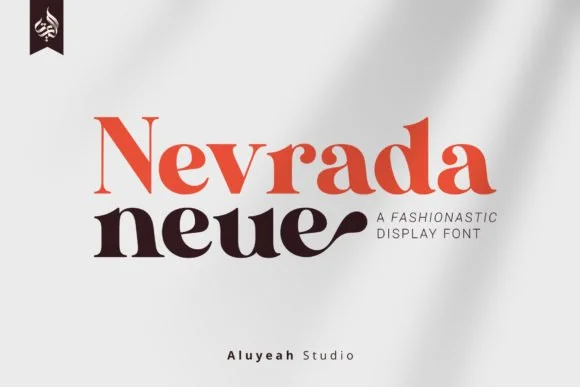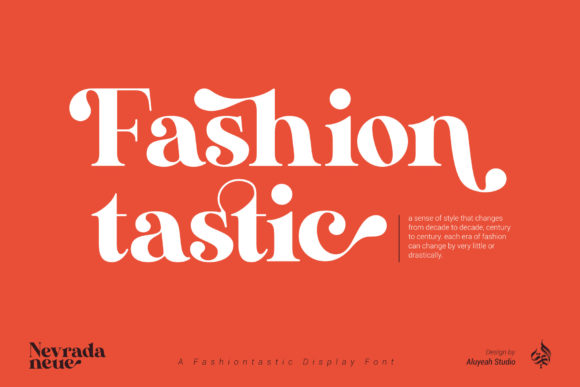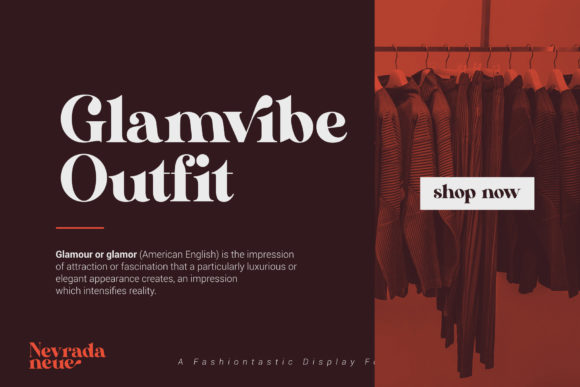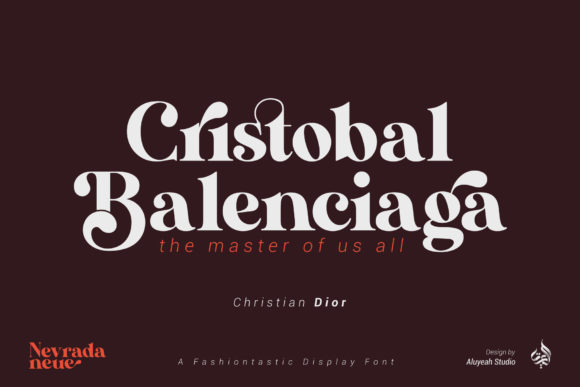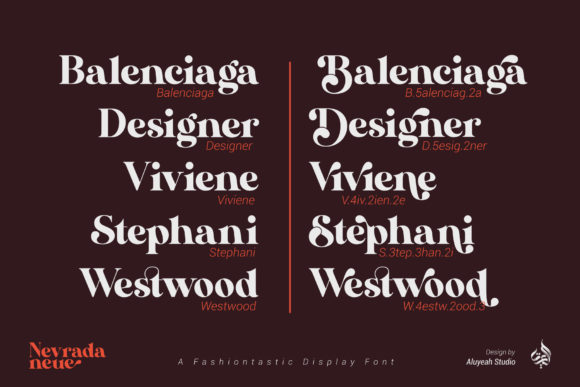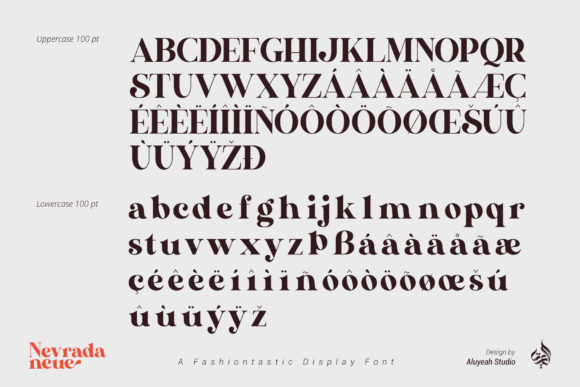
Nevrada Neue Font
Nevrada Neue Font is a magical display font carefully created with a touch of elegance. It will elevate a wide range of design projects to the highest level, be it branding, headings, wedding designs, invitations, signatures, logos, labels, and much more!
Nevrada Neue Font is a Display Fonts font that brings a professional and versatile look to your projects. Nevrada Neue Font is a magical display font carefully created with a touch of elegance.